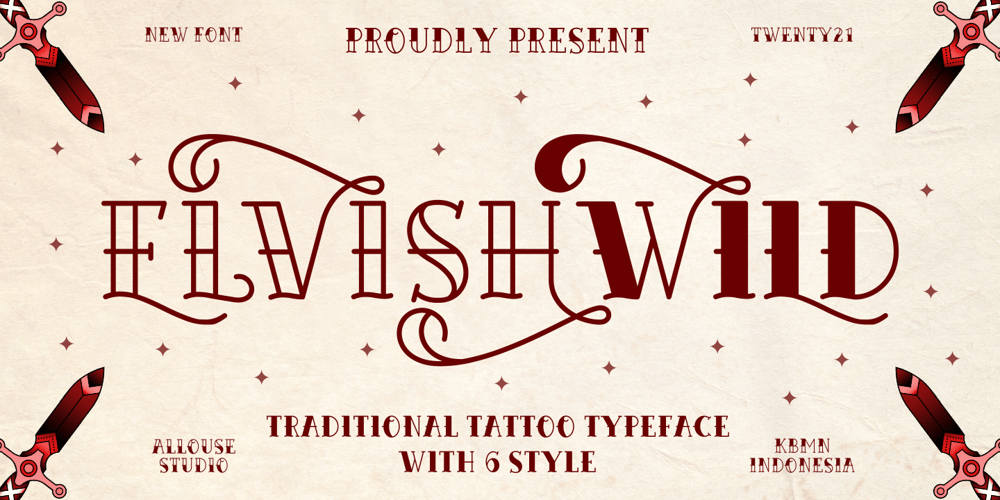
Elvishwild
Elvishwild font
Elvishwild Font Family was designed by Fachrizal Yusuf and published by Allouse Studio. Elvishwild contains 6 styles and family package options. Proudly Presenting, Elvishwild a Traditional Tattoo Typeface with 6 styles to fullfil your projects.Elvishwild is perfect for any titles, logo, product packaging, branding project, megazine, social media, wedding, or just used to express words above the background.Elvishwild also come with alternates, ascender swash, descender swash and Multi-Lingual Support.We highly recommend using a program that supports OpenType features and Glyphs panels like many of Adobe apps and Corel Draw, so you can see and access all Glyph variations.Enjoy the font, feel free to comment or feedback, send me PM or email. Thank You!